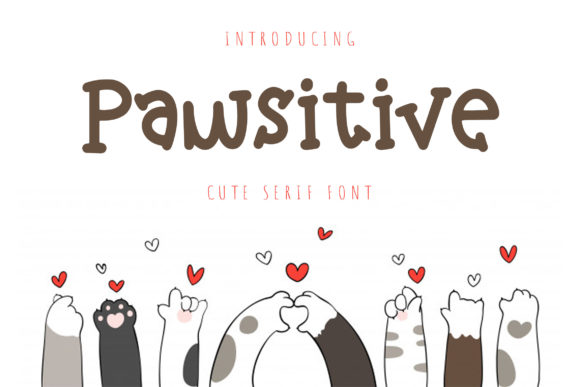
Step into the world of Pawsitive Font, a whimsical serif font that sparks imagination and adds a touch of charm to your digital creations. Each letter dances across the screen with a playful personality, captivating your audience with its unique characteristics. Whether you're a seasoned designer or just starting your creative journey, Pawsitive Font is your perfect companion, ready to transform your ideas into captivating masterpieces.
Immerse yourself in the beauty of Pawsitive Font, a font handcrafted with love and attention to detail. Its smooth curves and playful flourishes create a sense of warmth and joy, making it the ideal choice for designs that aim to uplift spirits and add a touch of whimsy. From enchanting children's stories to playful social media posts, Pawsitive Font brings your words to life with a vibrant personality.
Unleash your creativity and let Pawsitive Font guide you through a world of endless possibilities. Whether you're designing eye-catching logos, creating stunning posters, or crafting heartfelt invitations, this font is your versatile companion, adapting seamlessly to your unique vision. Its versatility knows no bounds, empowering you to create designs that resonate with your audience and leave a lasting impression.
With Pawsitive Font, you're not just downloading a font; you're inviting a world of imagination and creativity into your design toolbox. It's a font that inspires, captivates, and brings joy to all who encounter it. So why settle for ordinary when you can embrace the extraordinary? Download Pawsitive Font today and embark on a journey of artistic discovery that will leave you spellbound.